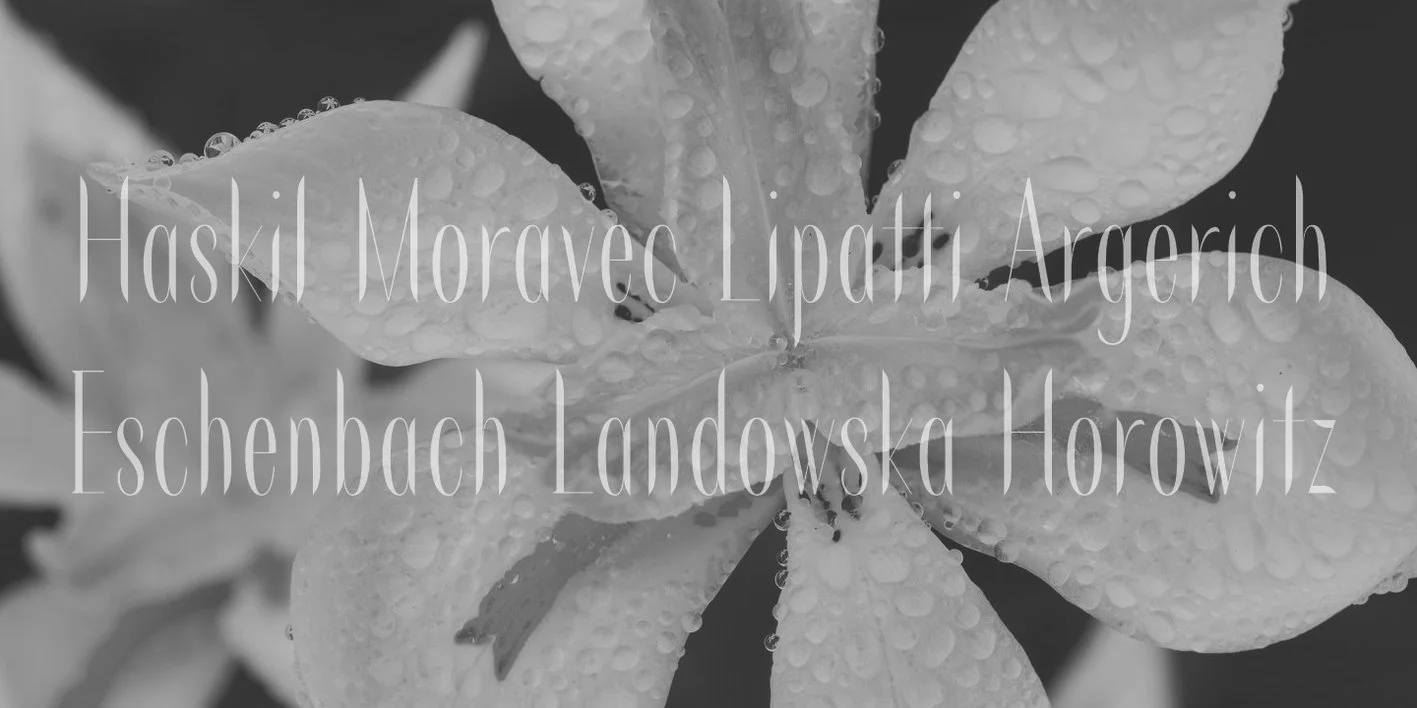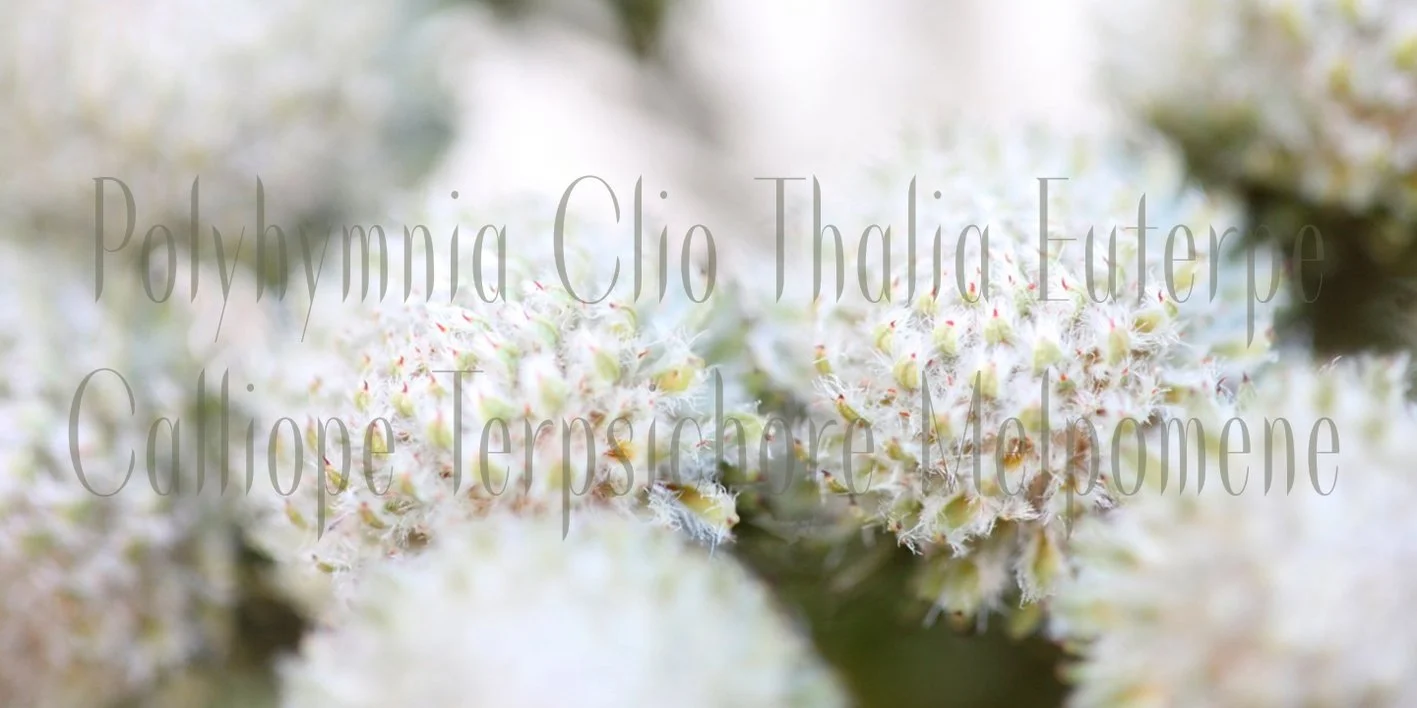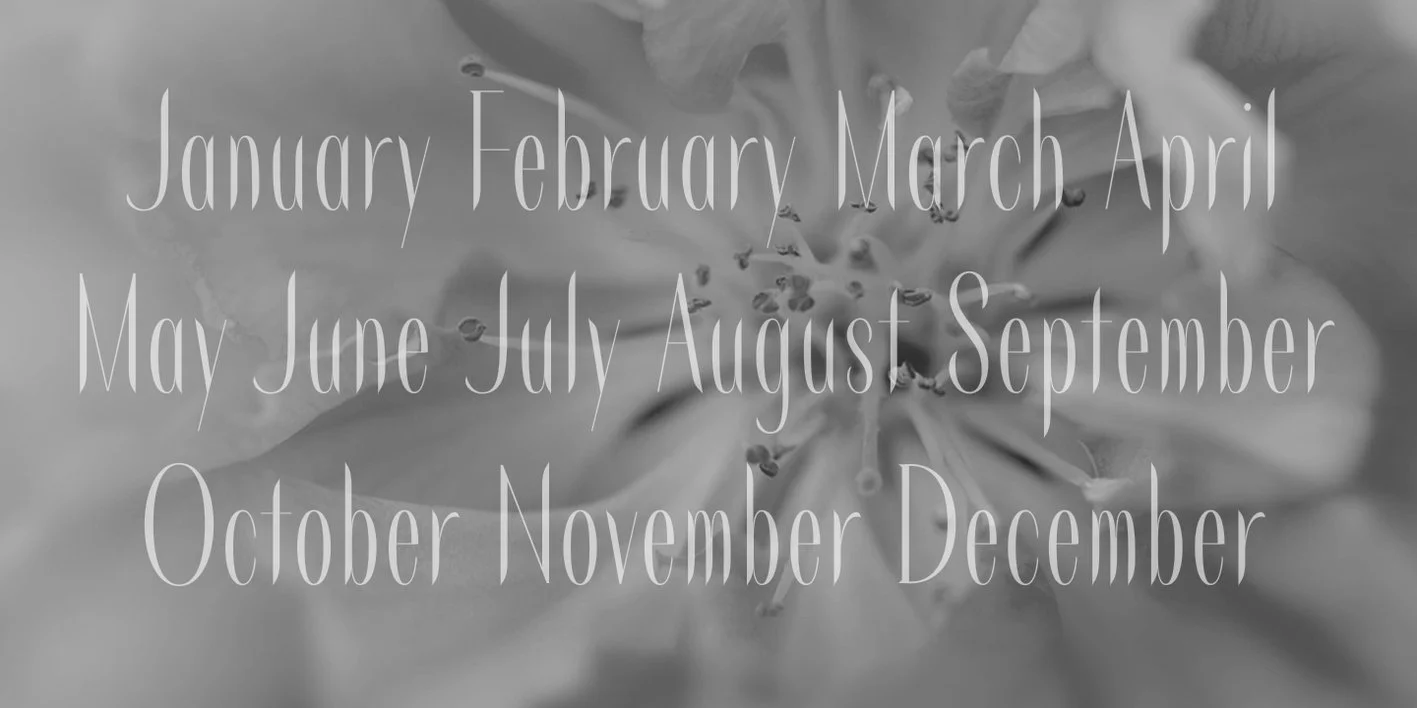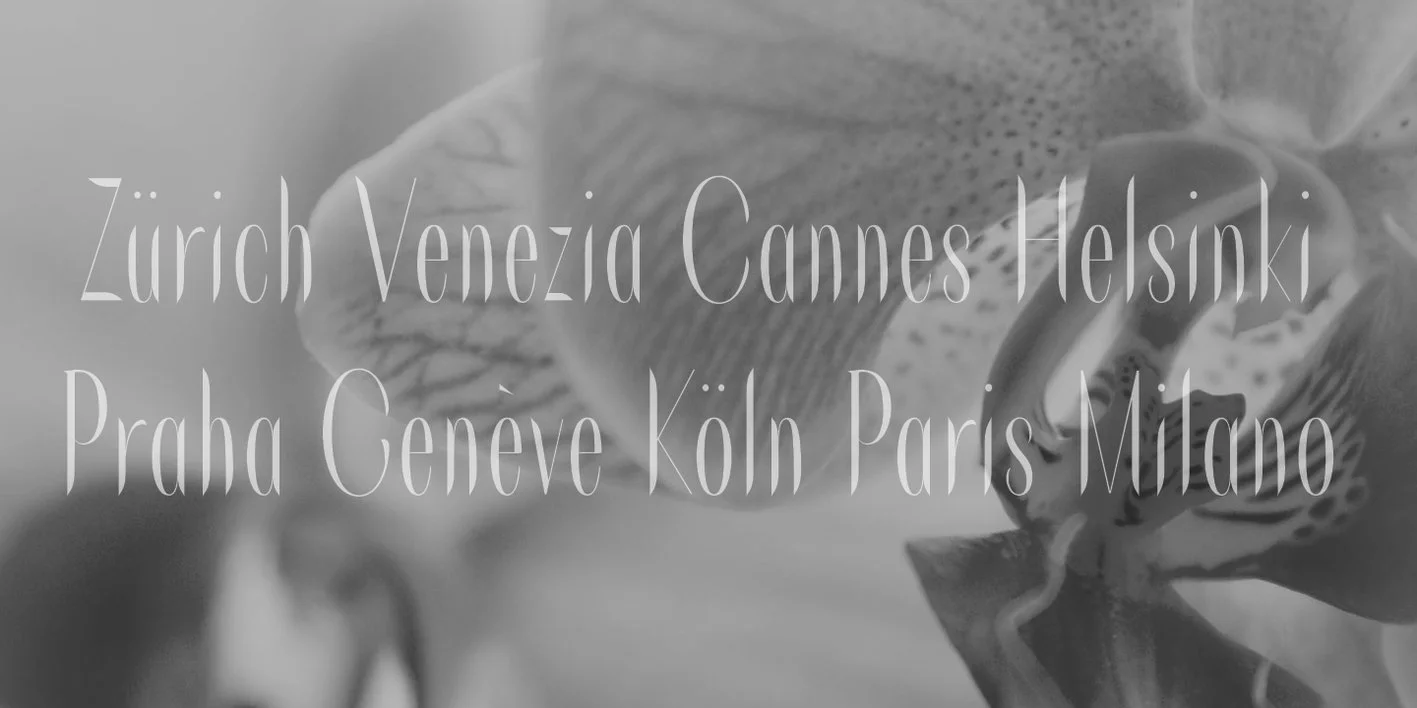
Czerny Font
Czerny offers a fresh typographic approach that balances visual appeal with exceptional legibility.
Common applications include business cards, posters, web headers, advertising materials, book covers, and corporate identity systems.